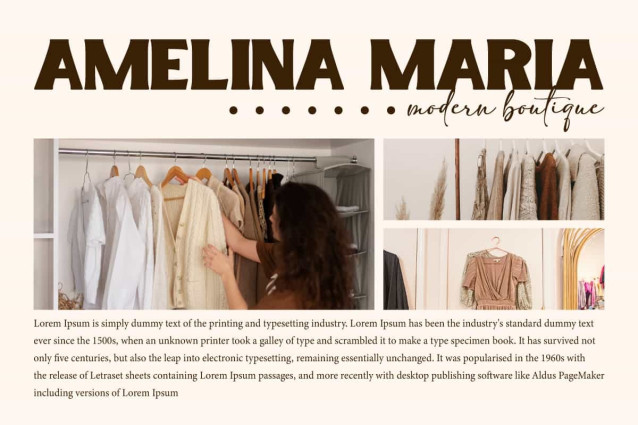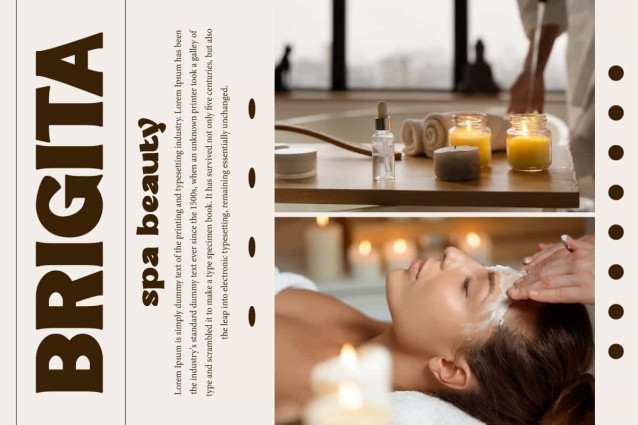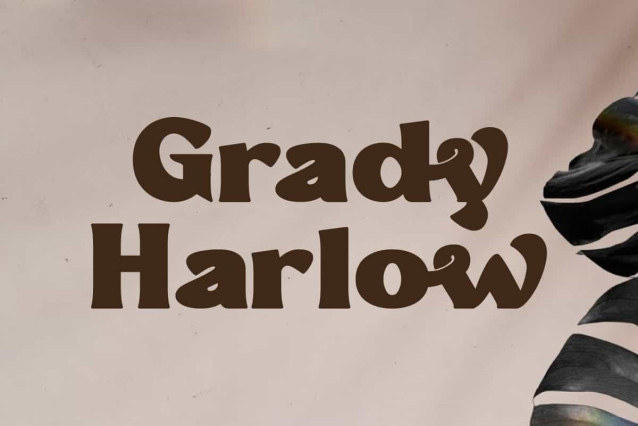
Grady Harlow Font
Grady Harlow Font is a display font with a playful and slightly retro feel. The letters have an organic and unique shape, that would be suitable for any designs, such as brand image, brochure, label, magazine cover, mockup template, packaging, poster, quotes, signage, stationery, website, and more!
Grady Harlow Font includes a complete set of Uppercase and Lowercase Basic Characters, Numbers, Punctuation, and Symbol. A font with several curved accents that give it a cheerful and expressive character. Making it a perfect choice for a variety of fields, such as advertising, beauty product, fashion, cafe, craft, event or wedding organizer, photography, real estate, restaurant, spa, travel, etc.